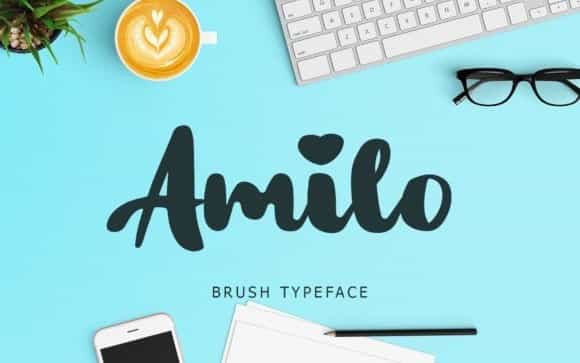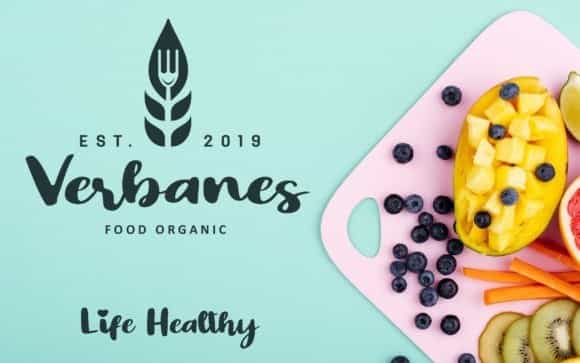
Amilo is a nice calligraphy handwritten font. This is a perfect blend of the real calligraphy and modern style. Amilo is the best font for creating unique and excellent designs.